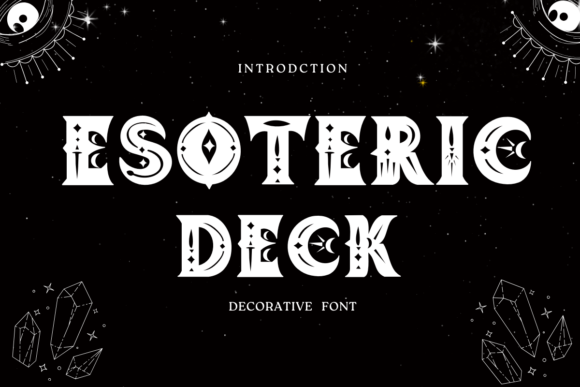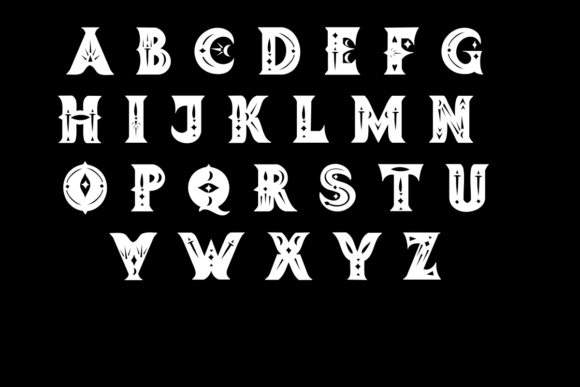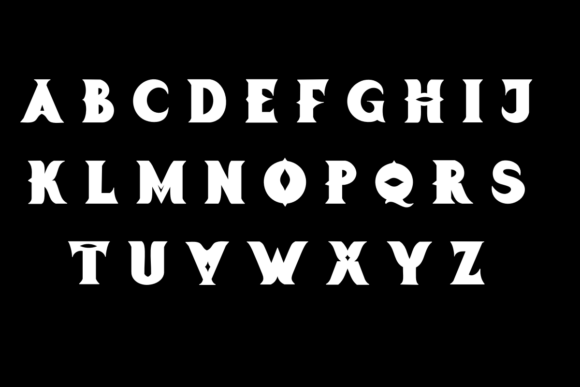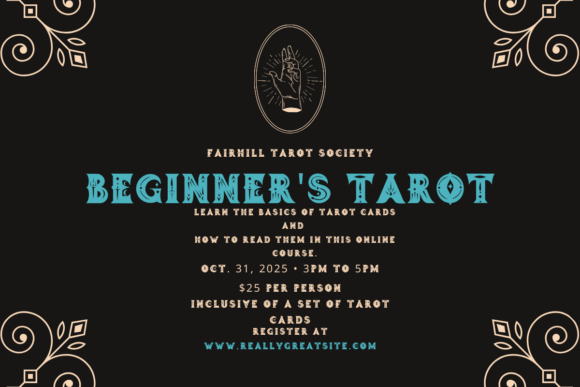
Esoteric Deck Font: Unique Decorative Font for Mystical Designs
About the Esoteric Deck Font
Let us introduce you to Esoteric Deck Font, where timeless design meets modern craftsmanship. Esoteric Deck is a Decorative font You can use it for taking notes, writing a diary, or making greeting cards. However, you can still use it for other designs, such as banners, content, mugs, cards, shirts, stationery, social media posts, and more!
Esoteric Deck’s decorative nature makes it ideal for headlines, short text blocks on posters or packaging, and branding elements requiring a touch of mystique. Its ornate details, however, make it unsuitable for body text or UI elements where readability is paramount; long paragraphs set in this font would be difficult to decipher.
The font possesses a bold and slightly mysterious personality. It works best for projects aiming for a vintage or esoteric feel, perhaps for a tarot-themed business, a fantasy novel cover, or a brand focused on occult or spiritual themes.
Pairing Esoteric Deck effectively requires a contrasting typeface. A clean sans-serif like Helvetica Neue would provide excellent legibility for supporting text, while a classic serif such as Garamond could lend a touch of sophistication. Avoid pairing it with other highly decorative fonts to prevent visual clutter.
Esoteric Deck Font Usage Examples